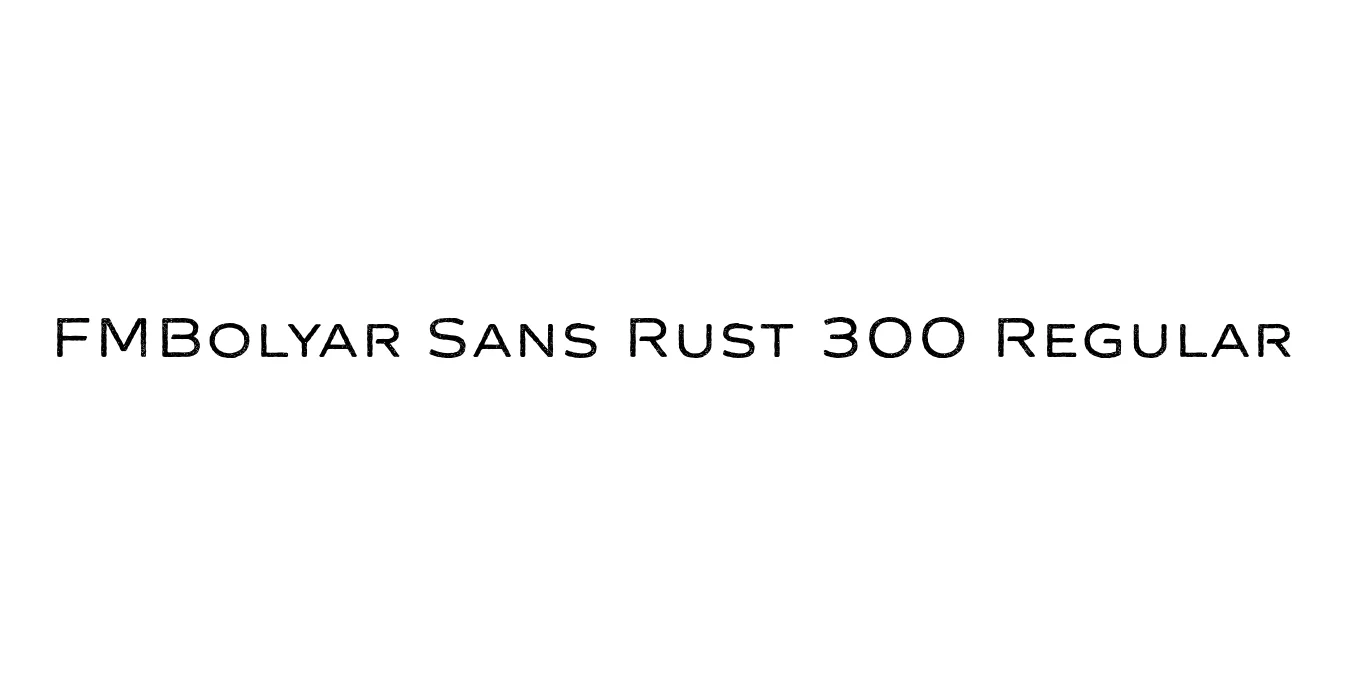
FMBolyar Sans Rust 300 Regular
Designed by Jordan Jelev and Vassil Kateliev
| Category | Sans Serif / Display |
| Designer | Jordan Jelev and Vassil Kateliev |
FMBolyar Sans Rust 300 Regular is a sophisticated part of the expansive Bolyar type system, developed by the creative team at Fontmaker. This specific weight is part of the 'Rust' sub-family, which was meticulously designed to provide a weathered, vintage aesthetic to the modern sans-serif structure. The font features a unique distressed texture that mimics traditional hand-printed techniques, making it a standout choice for designers looking to add a sense of history and authenticity to their digital projects.
Building on the legacy of the original Bolyar Sans, this version maintains high legibility while embracing a rugged, tactile finish. It is particularly effective in large display sizes where the intricate details of the 'Rust' effect can be fully appreciated. Whether used for high-end beverage labels or rustic brand identities, the font offers a perfect balance between professional typography and an artisanal, hand-crafted feel.
FMBolyar Sans Rust 300 Regular Best Uses
Ideal for creating rustic, vintage-inspired corporate identities and logos.
Perfect for high-end beverage labels, including wine, whiskey, and craft beer.
Well-suited for cafe menus, storefront displays, and weathered outdoor signs.
Excellent for t-shirt graphics and merchandise that require a worn-in, retro look.